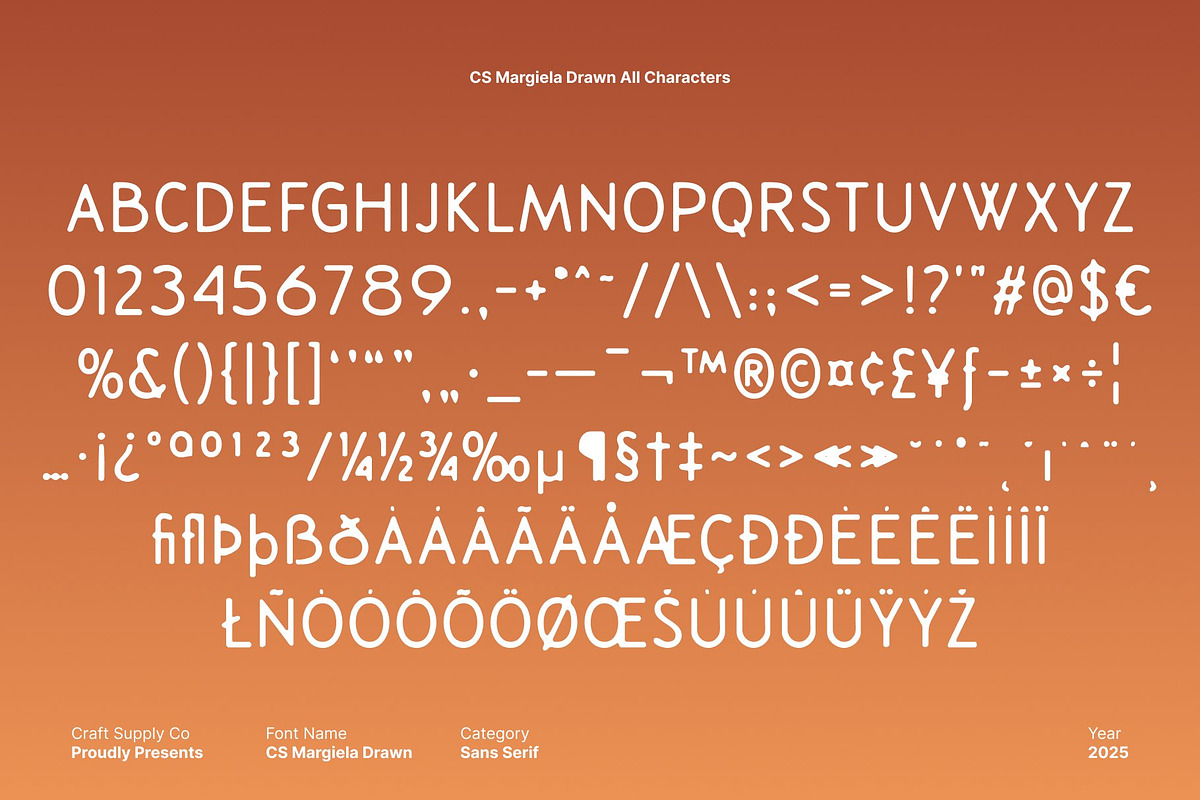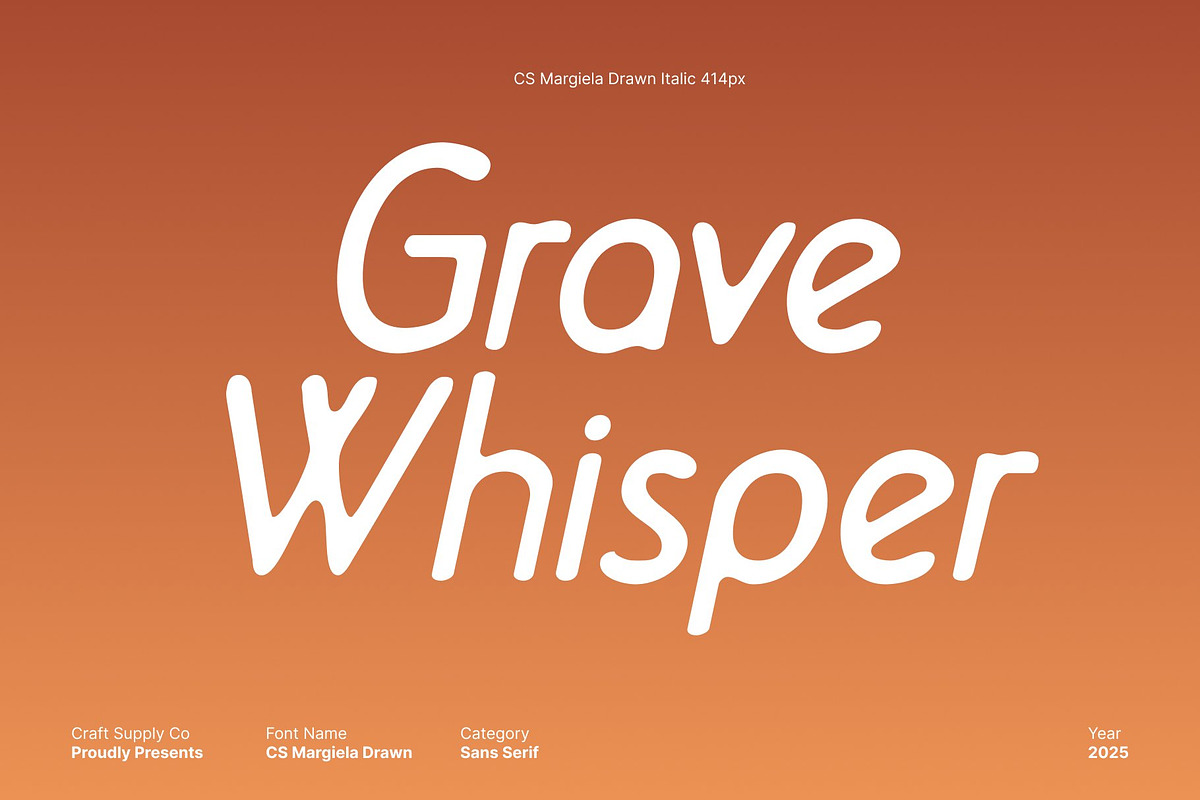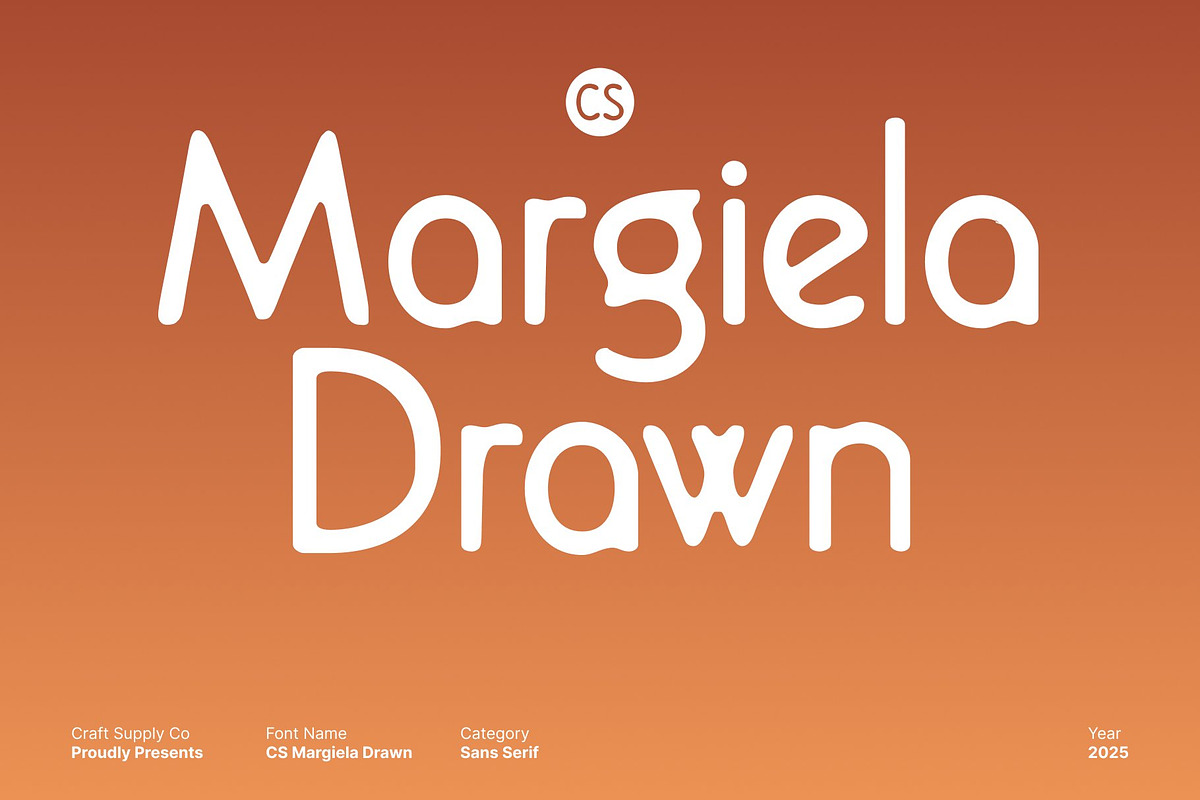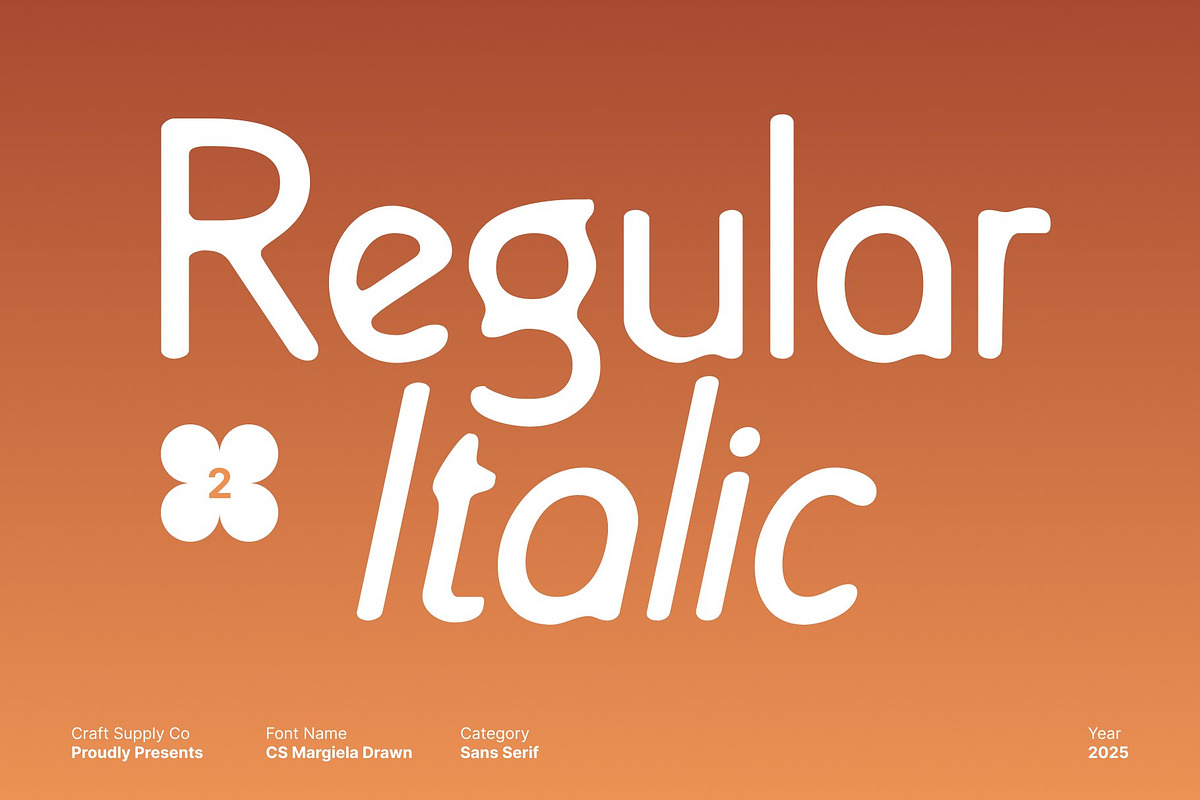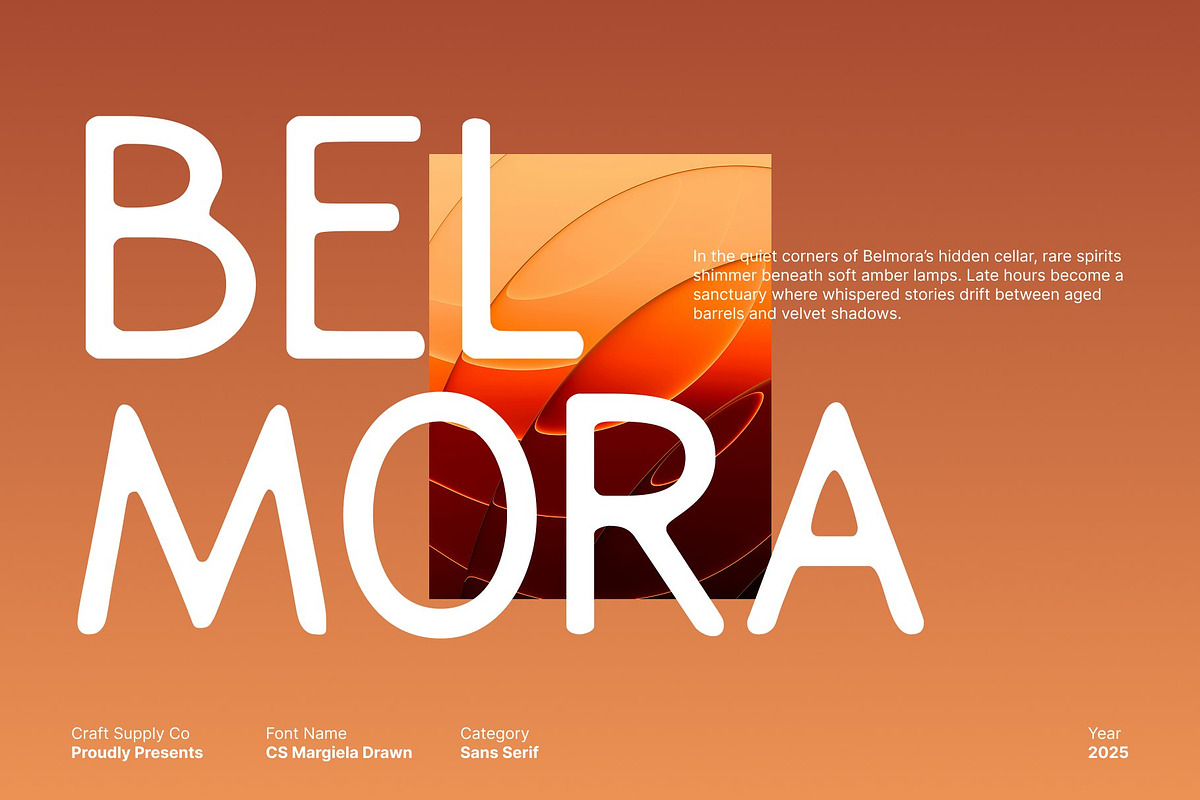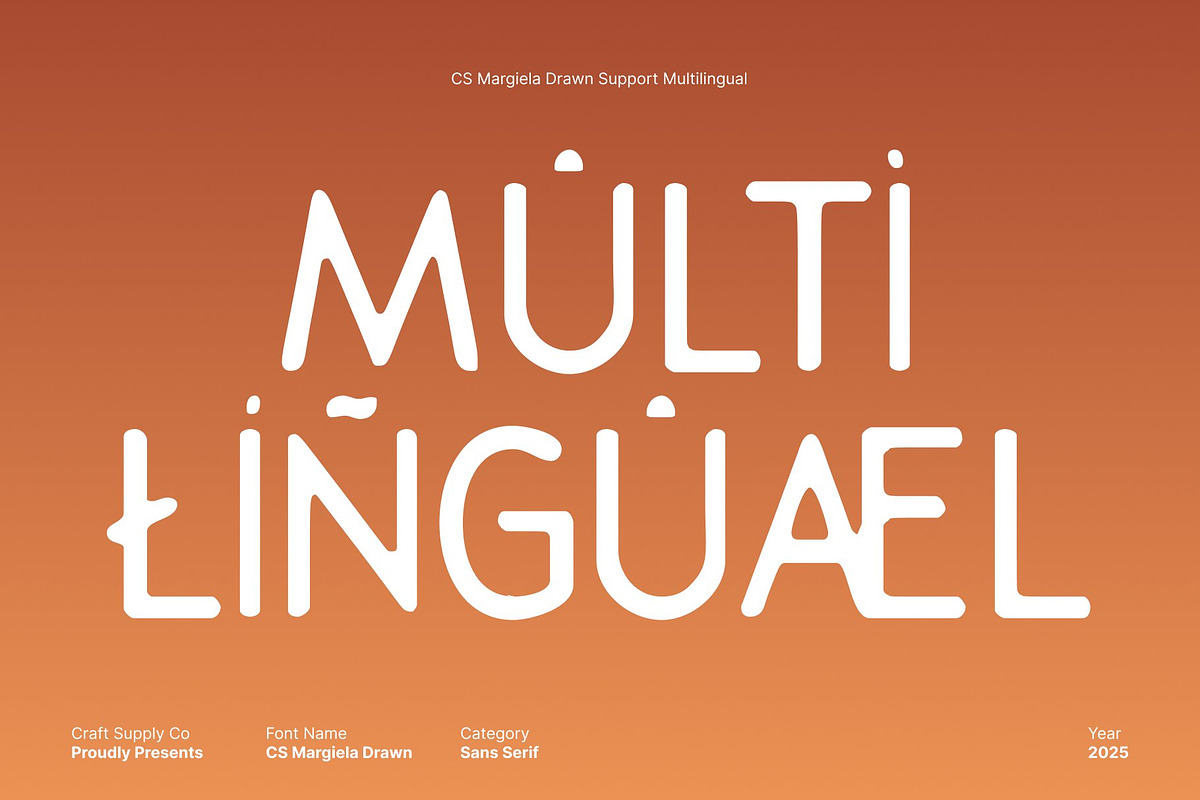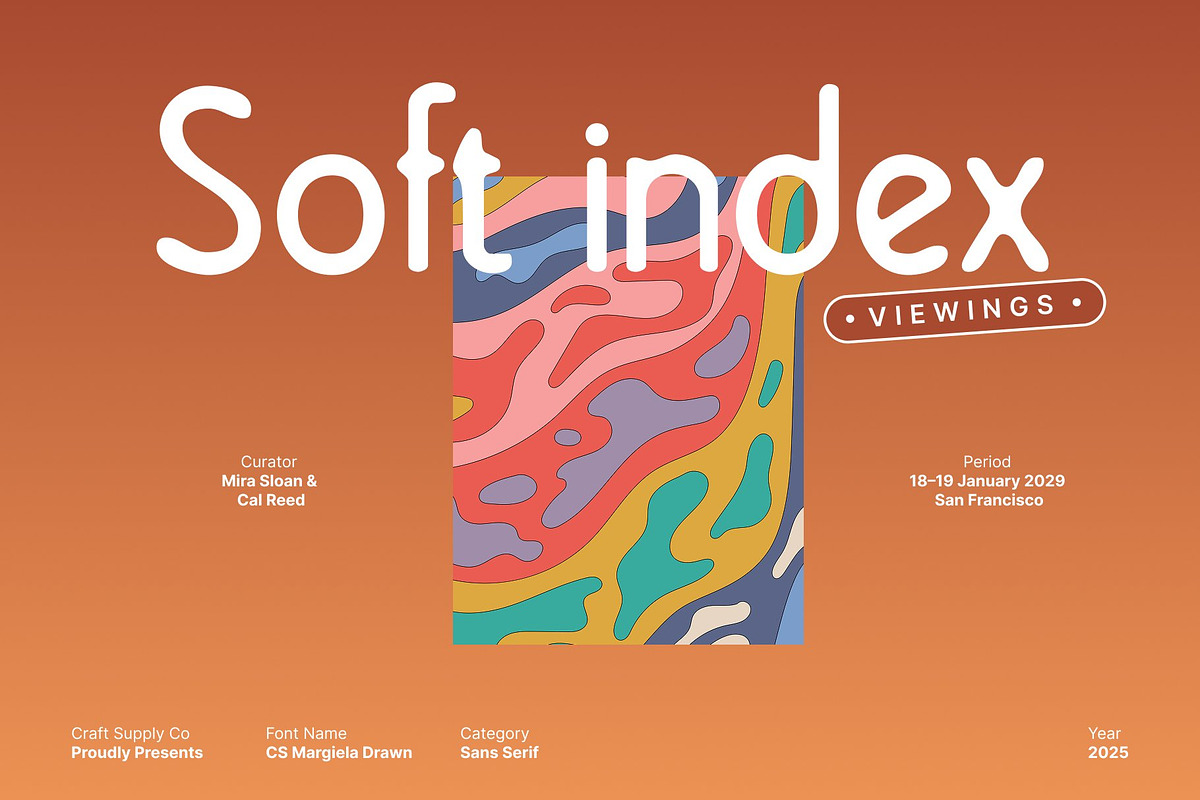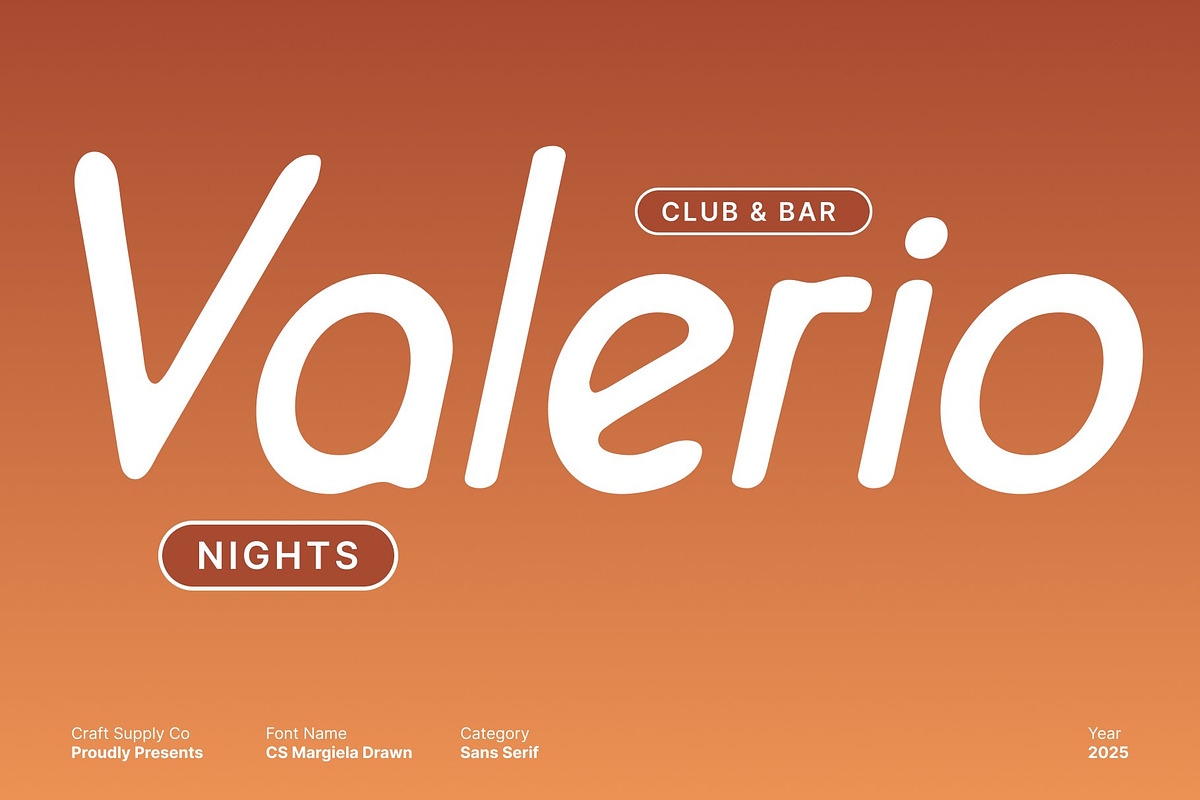
CS Margiela Drawn
CS Margiela Drawn – Modern Sans Serif with Artistic Drawn Texture
Modern Letterforms with Clear Visual Precision This modern sans serif font features a clean, contemporary design built on clarity, balance, and simplicity. Its sleek letterforms are carefully structured to deliver excellent readability while maintaining a refined, modern aesthetic. The neutral proportions and smooth construction make the font versatile and professional, suitable for a wide range of modern design needs.
Drawn Effect for Handmade Personality The drawn effect introduces a subtle handmade texture that gives each letter a unique personality. Slight imperfections and organic strokes soften the modern structure, adding warmth and artistic depth. This handcrafted touch prevents the font from feeling overly mechanical, instead creating typography that feels expressive, human, and visually engaging without sacrificing its clean appearance.
Perfect for Branding, Editorials, and Creative Projects Ideal for branding identities, editorial layouts, posters, packaging, and creative campaigns, this font bridges the gap between professionalism and creativity. Its modern sans serif foundation ensures clarity and consistency, while the drawn texture adds originality and character making designs feel both contemporary and distinctive.
Modern, Artistic, and Aesthetically Balanced By blending sleek modern design with subtle manual detailing, this typeface achieves a harmonious balance between structure and expression. It’s a perfect choice for designers seeking a modern sans serif font that looks clean yet artistic, minimal yet warm delivering an aesthetically pleasing and memorable visual identity across digital and print projects.’
- CS Margiela Drawn Regular
- CS Margiela Drawn Italic